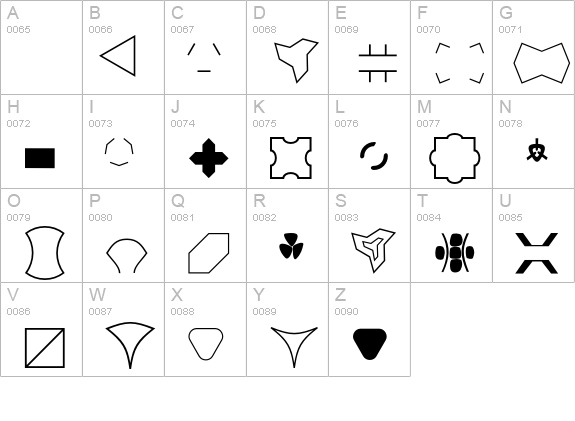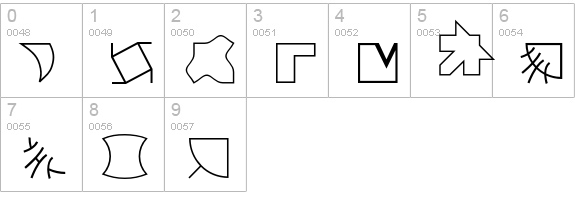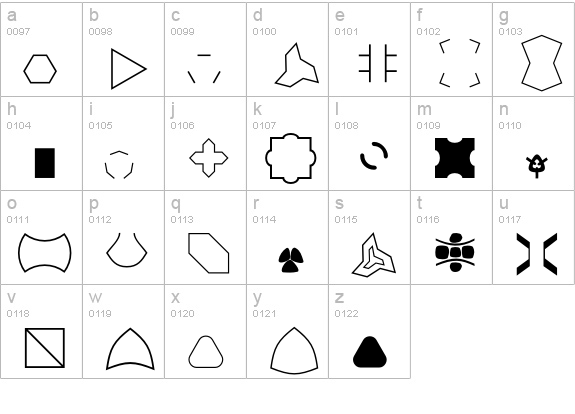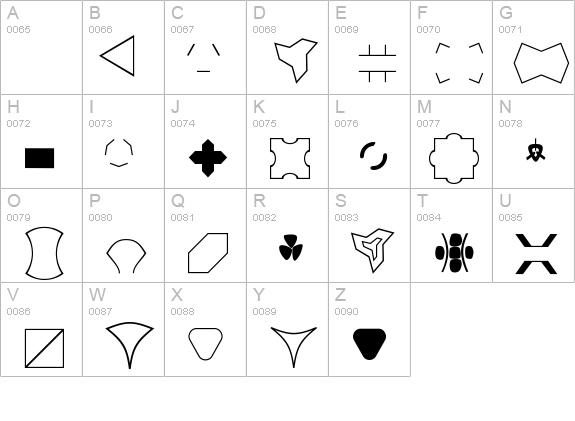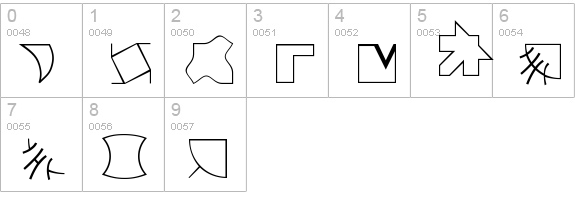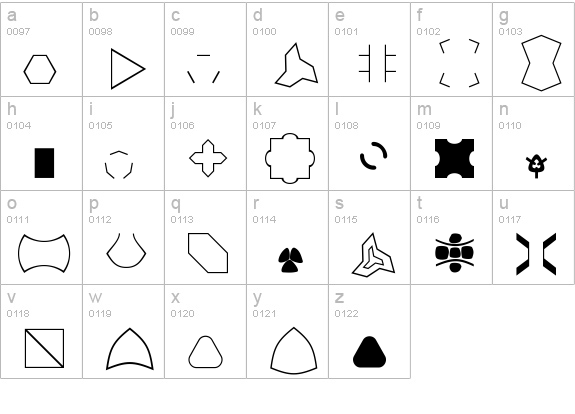
The Creativ font is a stunning display typeface that exudes creativity and elegance. Its unique and artistic design makes it perfect for a wide range of projects, from branding to packaging and beyond. The intricate details of each letter give this font a distinctive and eye-catching appearance that is sure to make your designs stand out. What's even better is that the Creativ font is available for free download at FontsMarket.com. Yes, you heard that right - this beautiful font can be yours at no cost at all. So why wait? Add a touch of sophistication and creativity to your projects with the freely available Creativ font today.